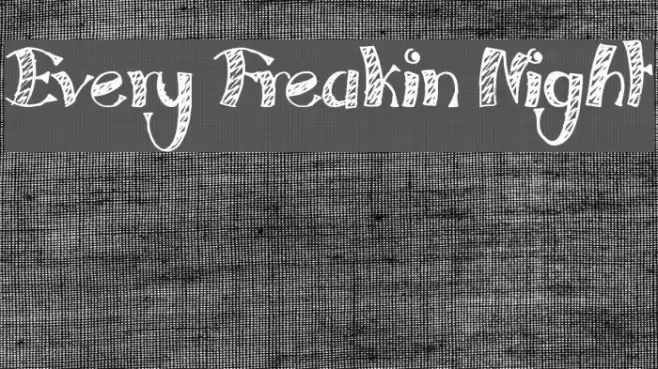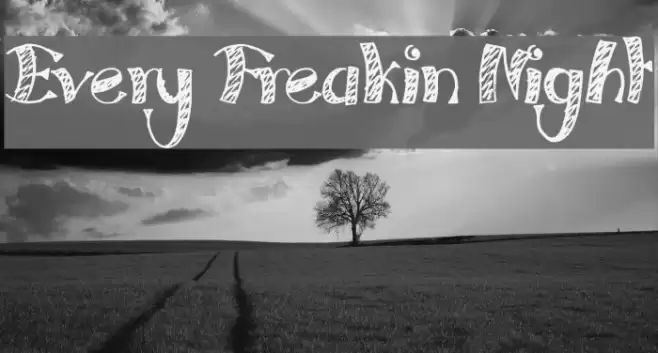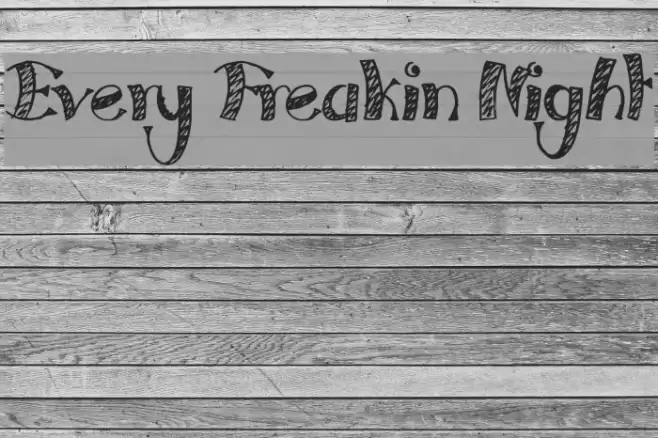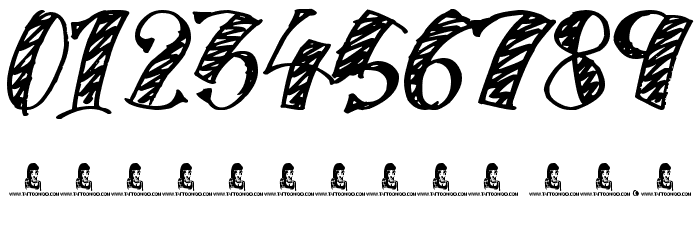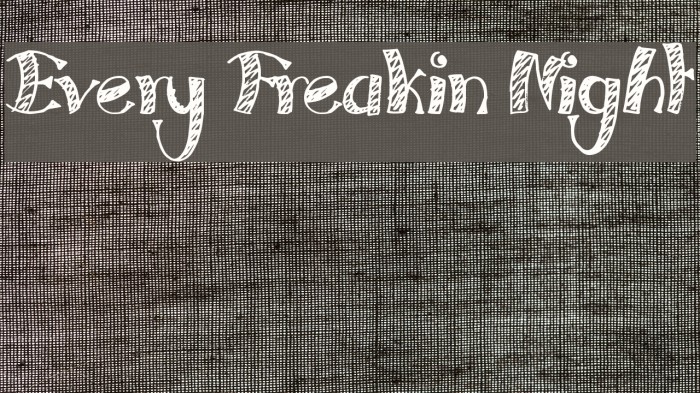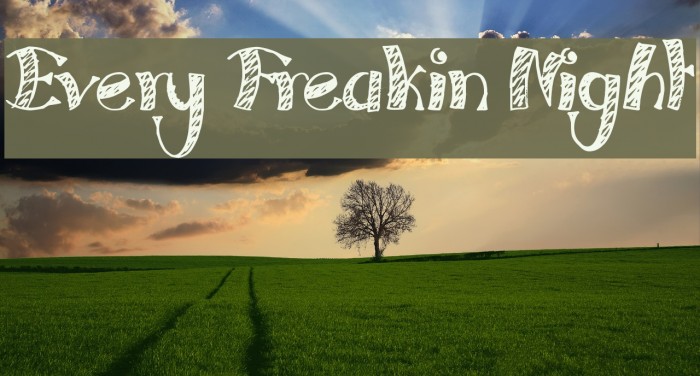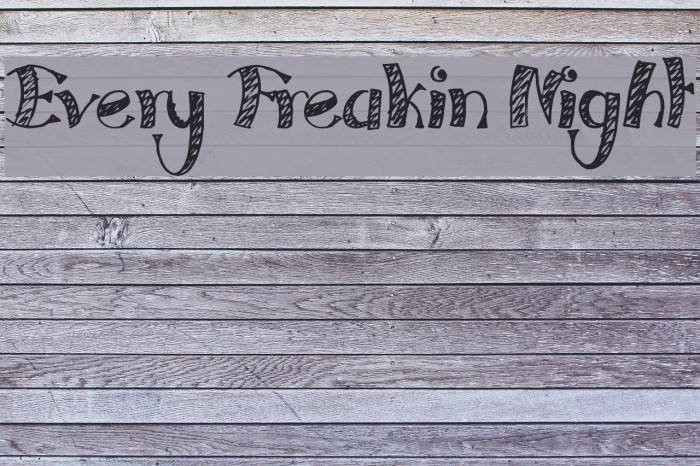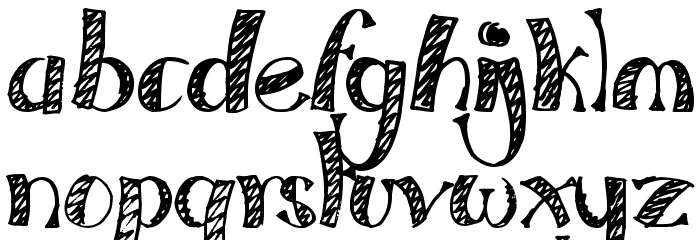
Every Freakin Night Font
Every Freakin Night Description
This font features a bold and expressive style with a hand-drawn appearance. The letters are characterized by a playful, sketch-like texture that gives them a dynamic and energetic feel. The uppercase and lowercase letters maintain a consistent style, with exaggerated curves and varying stroke widths that add to the font's whimsical nature. The numbers and special characters follow the same design principles, ensuring uniformity across all characters. This font is ideal for projects that require a fun and informal touch, making it suitable for creative and artistic applications.
A bold, hand-drawn font with a playful, sketch-like texture from Uncategorized fonts.
- Proposed Projects: Ideal for posters, children's books, creative branding, and artistic projects.